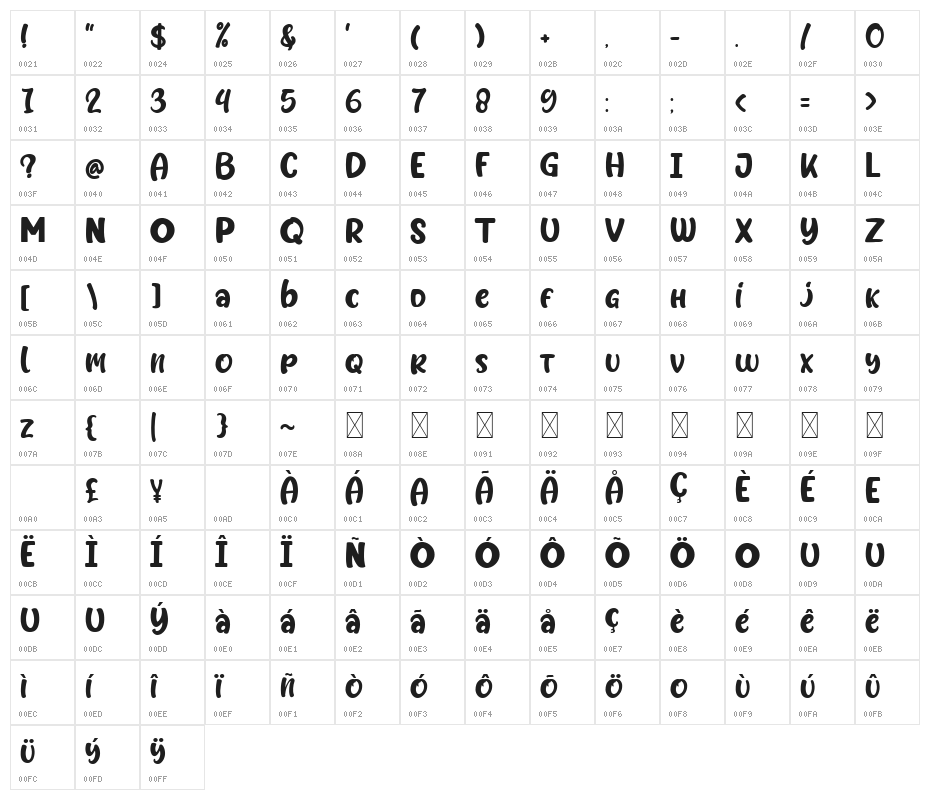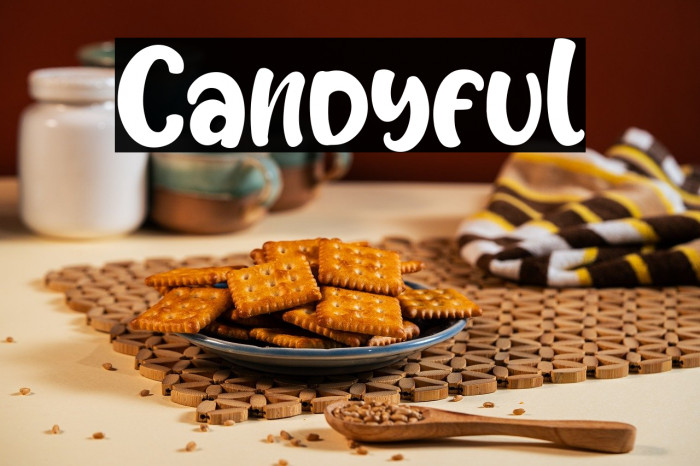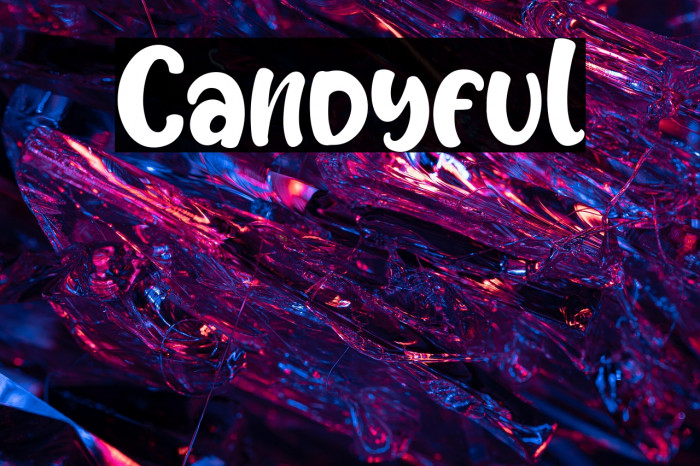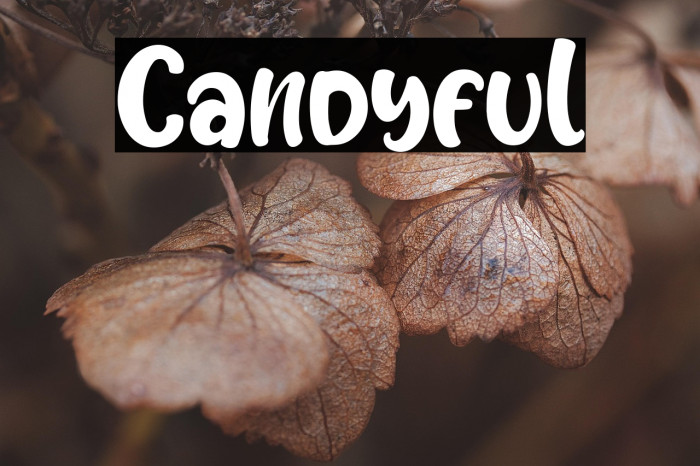
Candyful Font
Candyful Description
This playful and bold font features rounded, bubbly characters that exude a sense of fun and whimsy. The letters are thick and slightly irregular, adding a hand-drawn feel that enhances its casual and friendly appearance. The uppercase and lowercase letters maintain a consistent style, with a smooth flow and rounded edges that make the font approachable and lively. The numerals and special characters follow the same design principles, ensuring a cohesive look across all text. This font is perfect for projects that aim to convey a sense of joy and creativity.
| Overall Style | Playful, Casual |
| Proposed Projects | Ideal for children's books, playful branding, party invitations, and creative posters. |